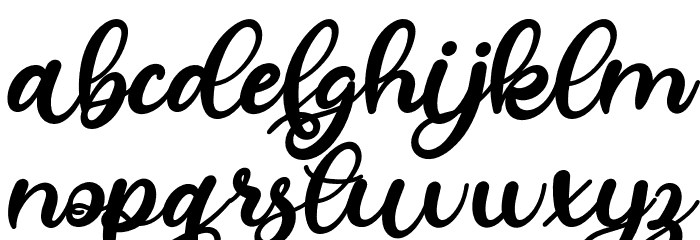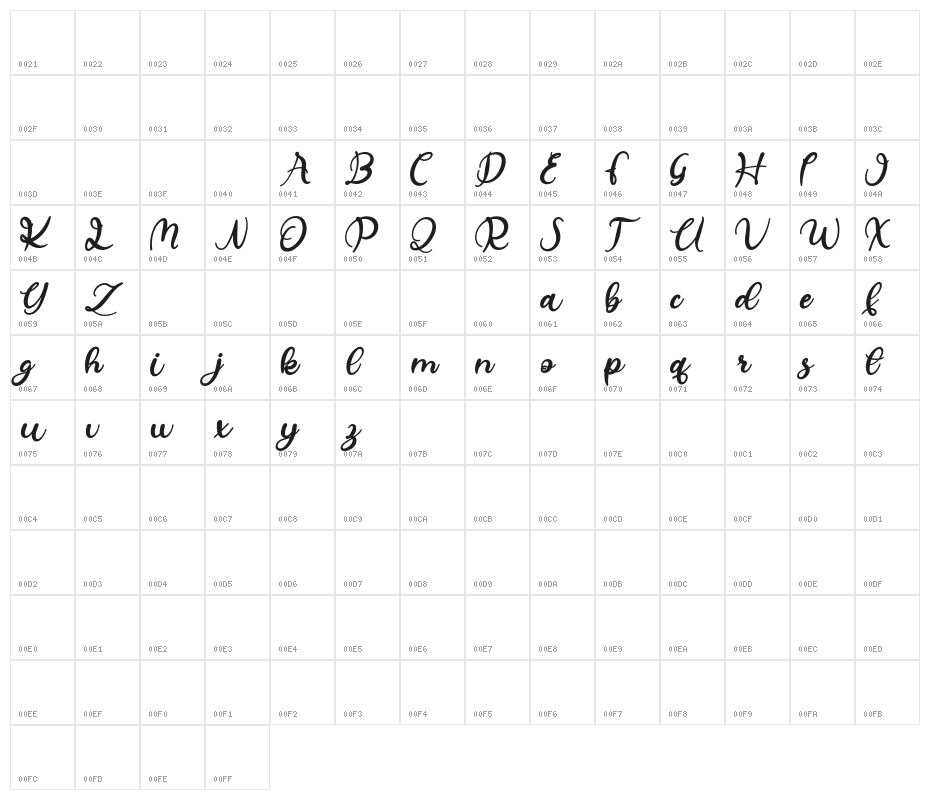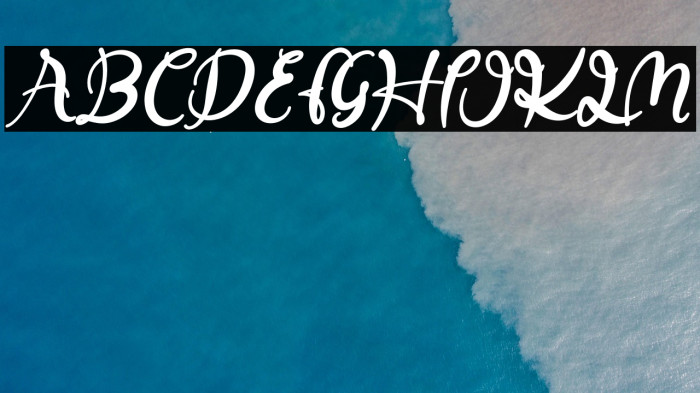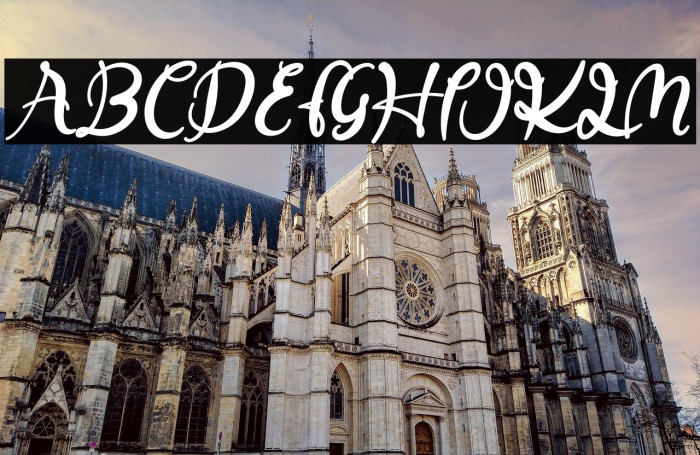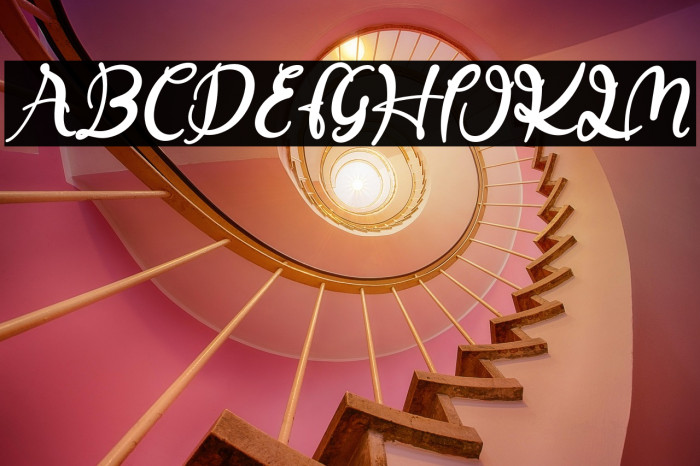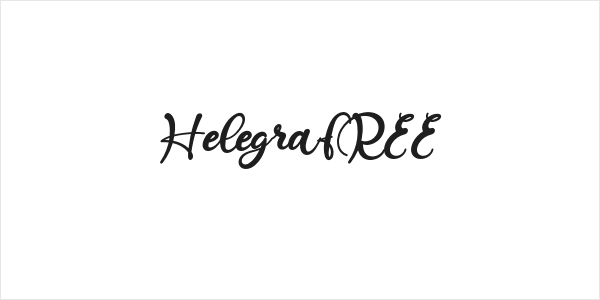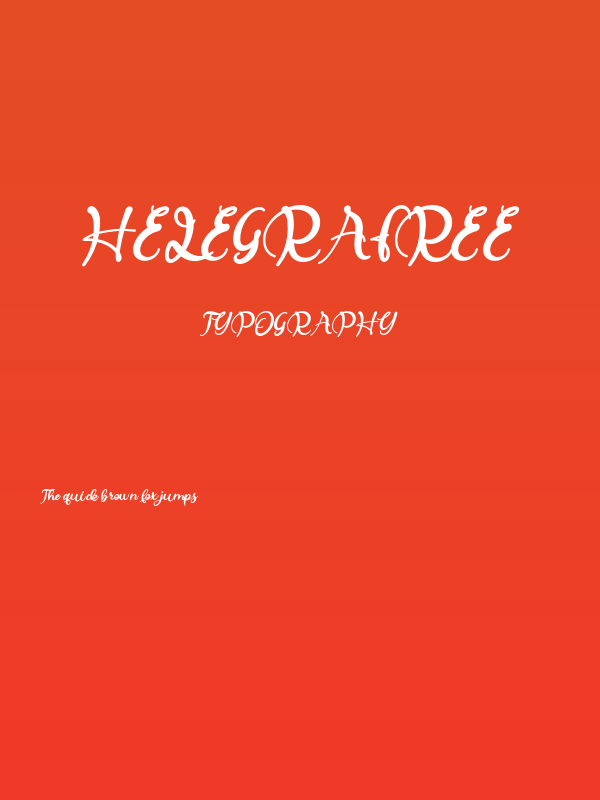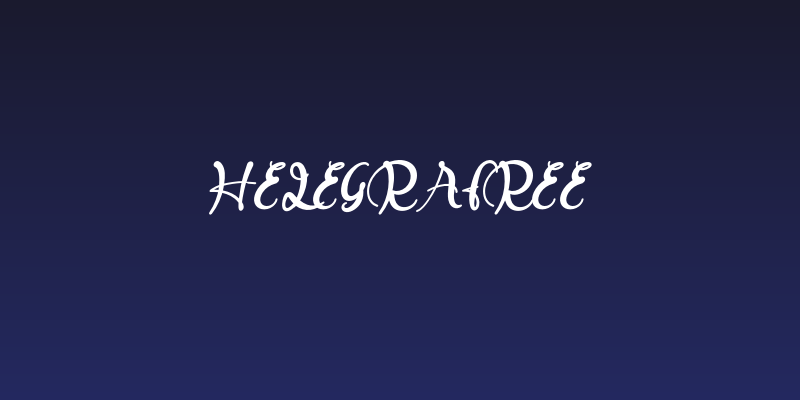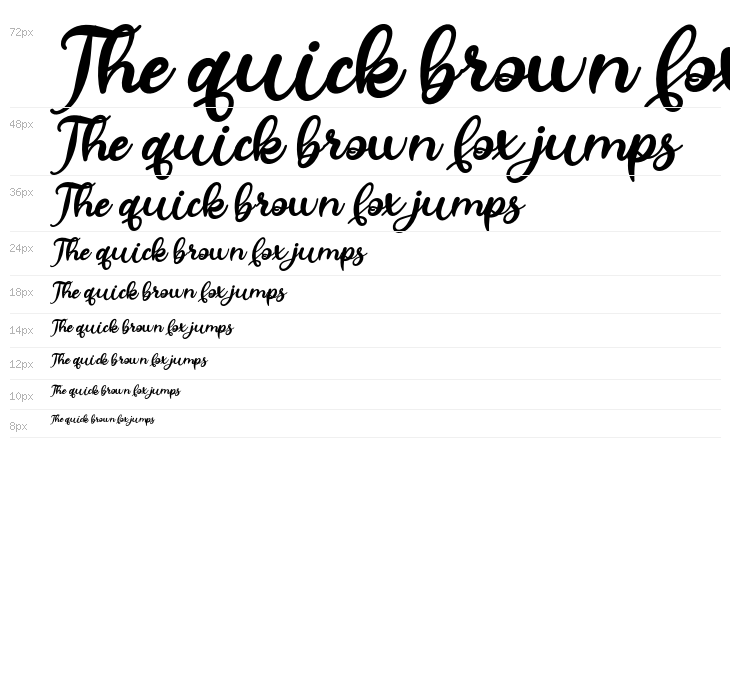
HelegraFREE Font
This font features a flowing, cursive style with elegant loops and swashes, giving it a handwritten appearance. The uppercase letters are distinct with varying heights and intricate curves, while the lowercase letters maintain a consistent flow, enhancing readability. The font exudes a sense of sophistication and charm, making it suitable for creative and decorative purposes. It combines both thick and thin strokes, adding a dynamic contrast that captures attention. The overall design is both artistic and functional, ideal for projects that require a personal touch.
A cursive, handwritten font with elegant loops and dynamic contrast.
- Font: HelegraFREE
- Proposed Projects: Ideal for wedding invitations, greeting cards, branding, and logo design.
- Category: Script
- Use Case: Logos, Invitations, Decorative text